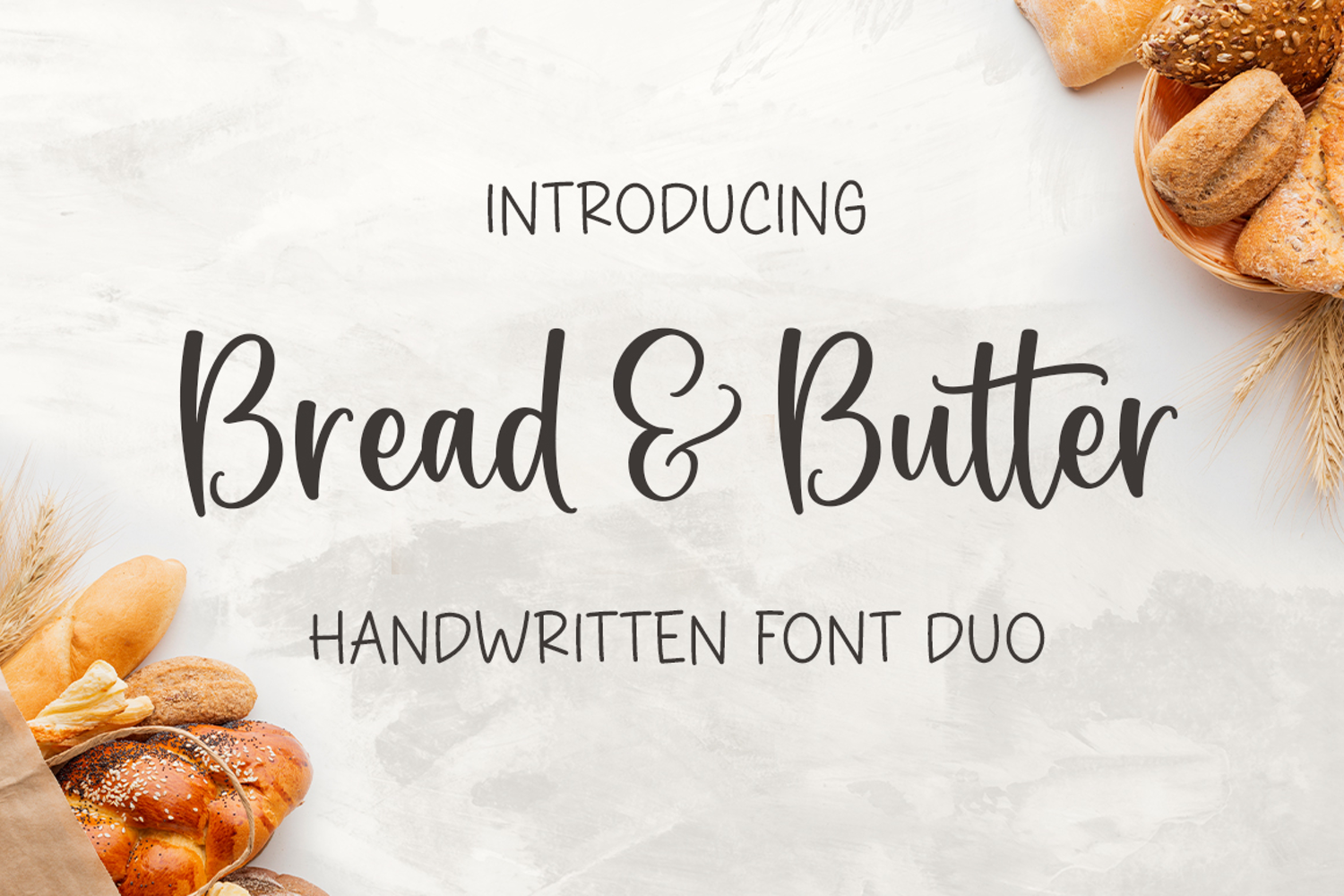
Bread and Butter Duo
Butter
Bread & Butter
Bread and Butter Duo consists of two fonts (script and sans) designed to complement each other perfectly. Together or apart, these fonts are ideal for adding a chic and cheery touch to your crafts.
Bread and Butter Duo